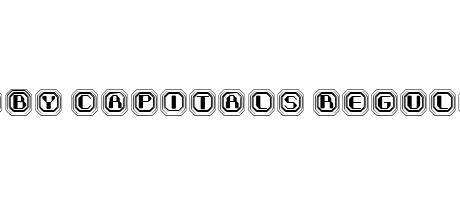
Baby Capitals
Baby Capitals Regular is a playful, Art Deco-inspired font. Each letter sits proudly within a bold, octagonal frame, creating a vintage, almost stamped look. The design is both sophisticated and slightly whimsical, suggesting a touch of retro charm and elegance. The consistent, uppercase style adds to its strong, declarative presence.